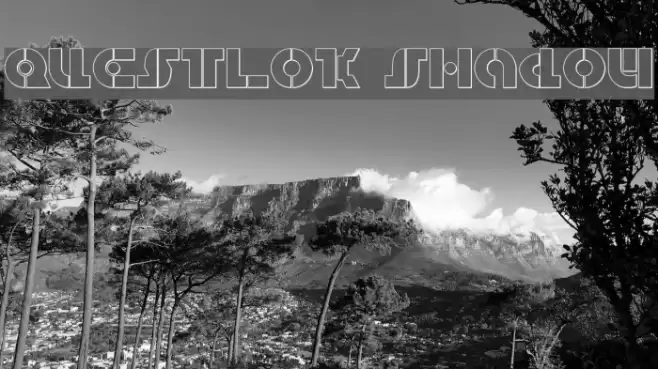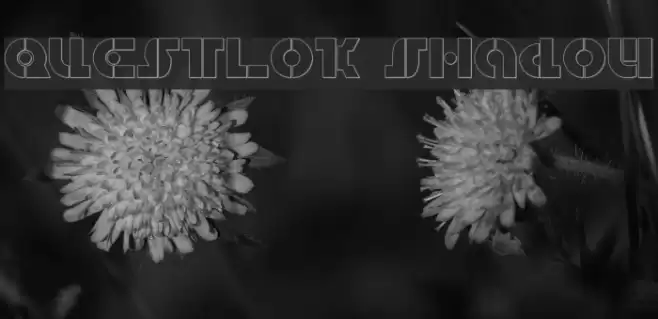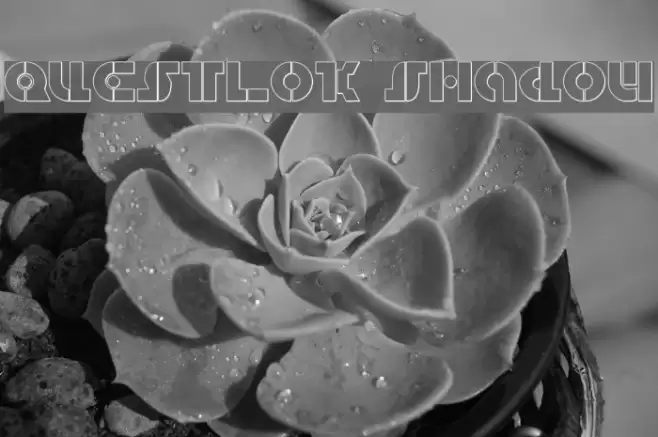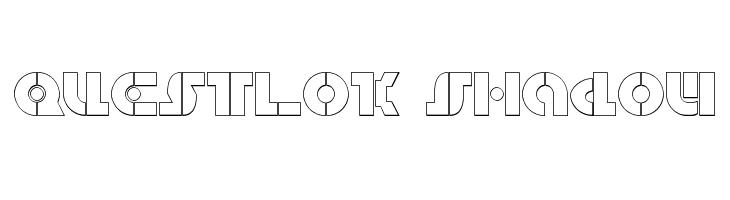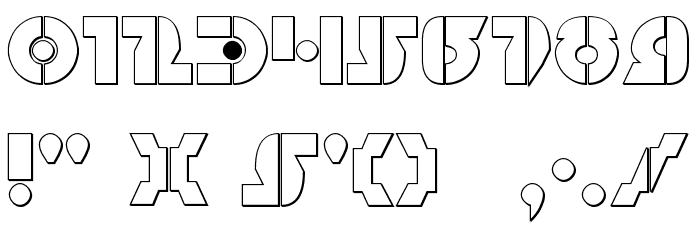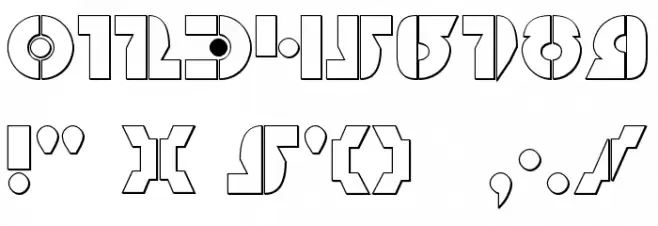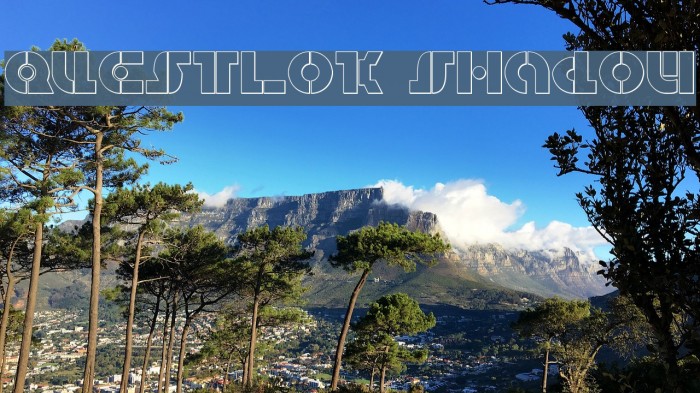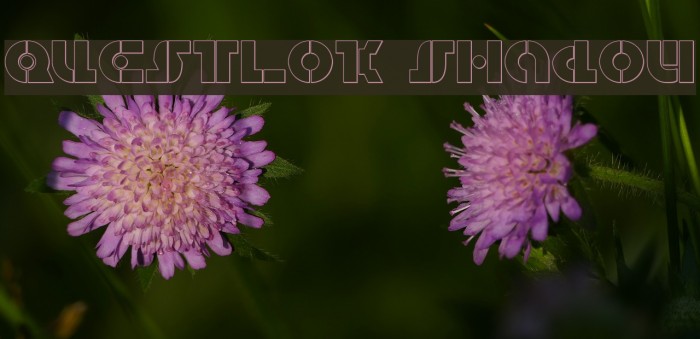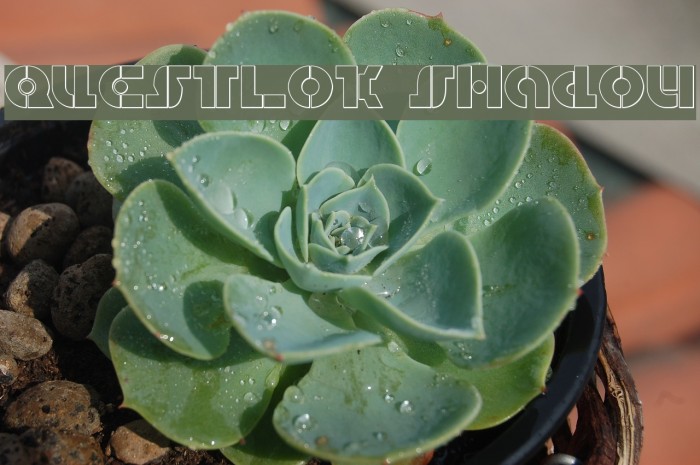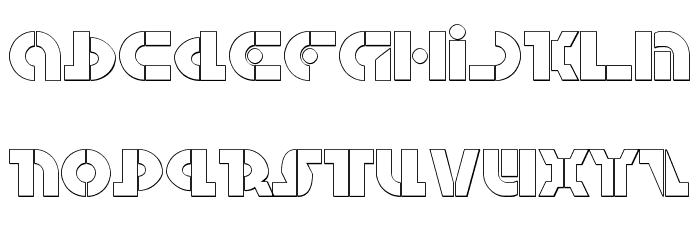
Questlok Shadow Font
Questlok Shadow Description
This font features a unique, geometric design with a shadow effect that gives it a three-dimensional appearance. The characters are constructed with bold, angular lines and sharp edges, creating a futuristic and industrial feel. The uppercase and lowercase letters maintain a consistent style, with the lowercase slightly smaller but equally bold. Numbers and special characters follow the same design principles, ensuring uniformity across all glyphs. The font's distinct style makes it stand out, ideal for projects that require a modern and edgy look.
A bold, geometric font with a shadow effect, offering a futuristic and industrial aesthetic from Decorative fonts.
- Proposed Projects: Ideal for branding, posters, video game titles, and any project needing a modern, edgy look.